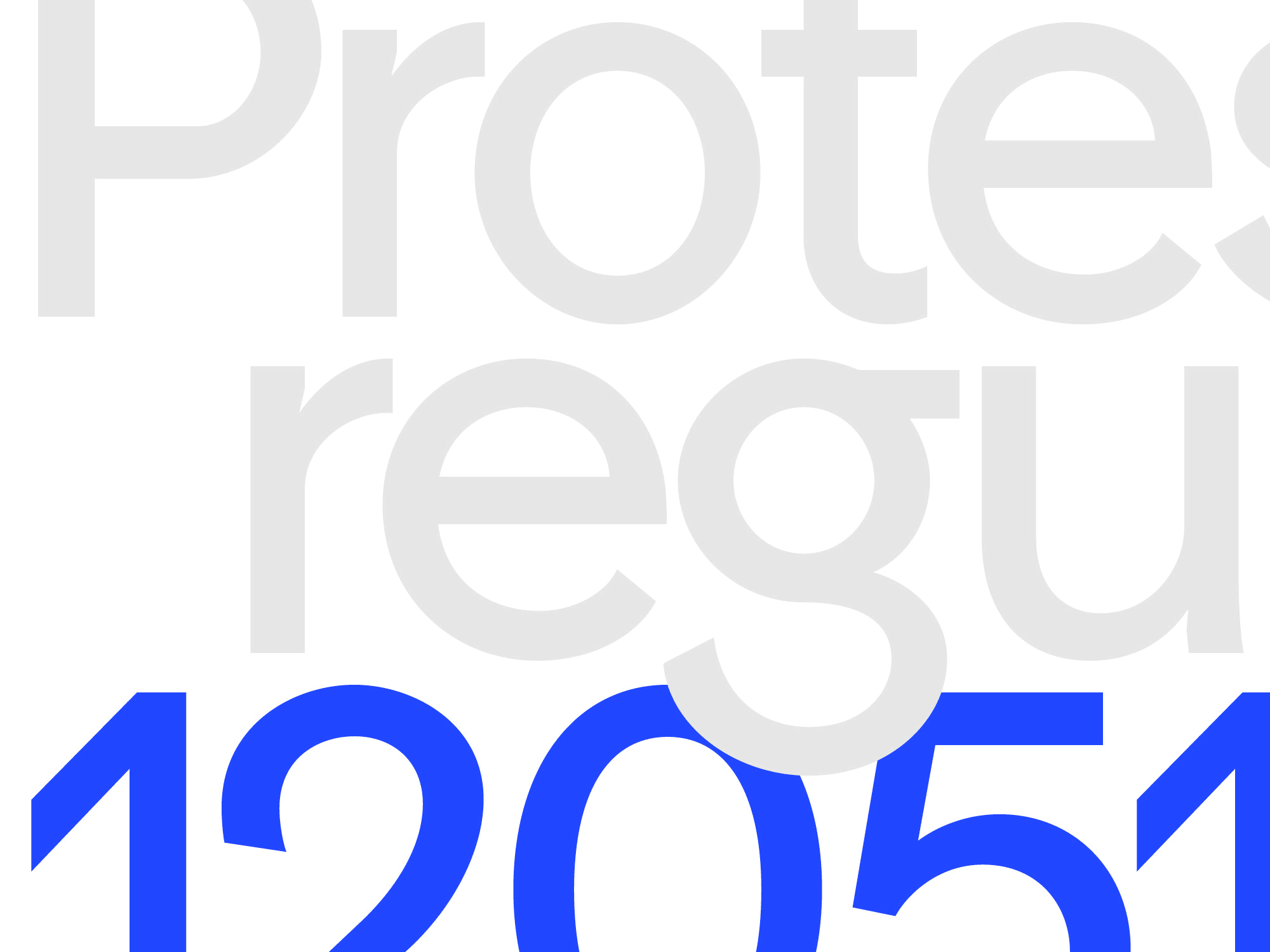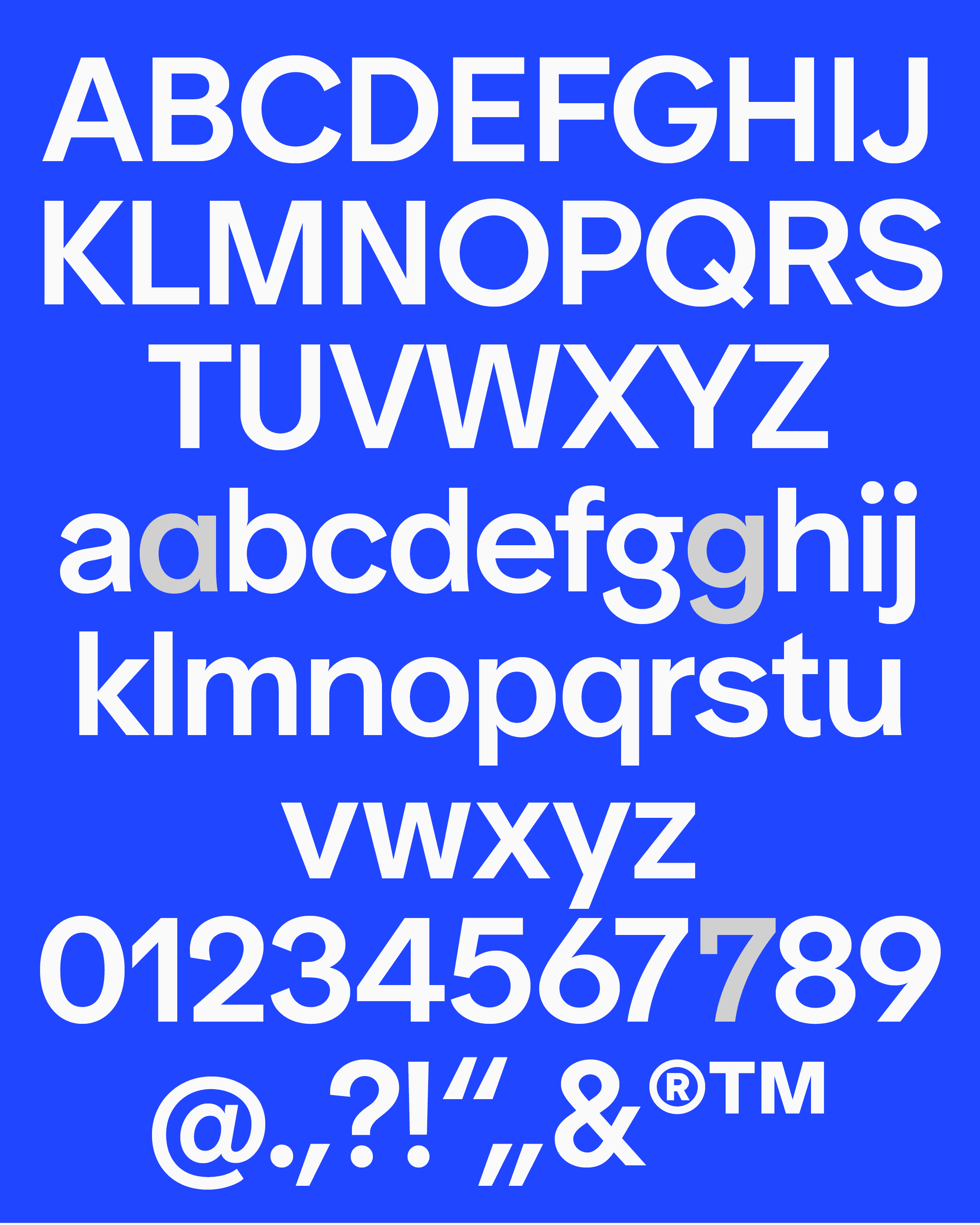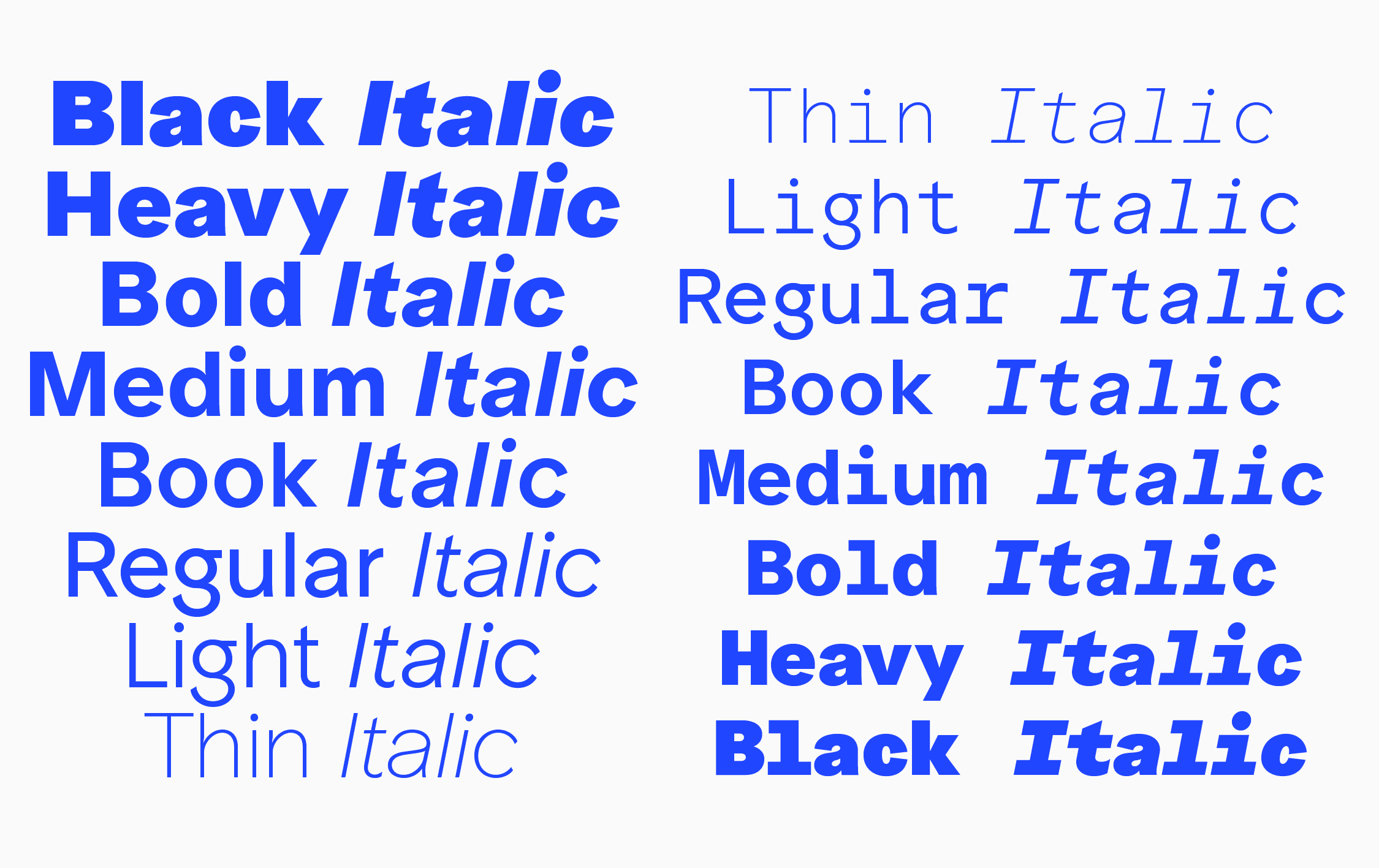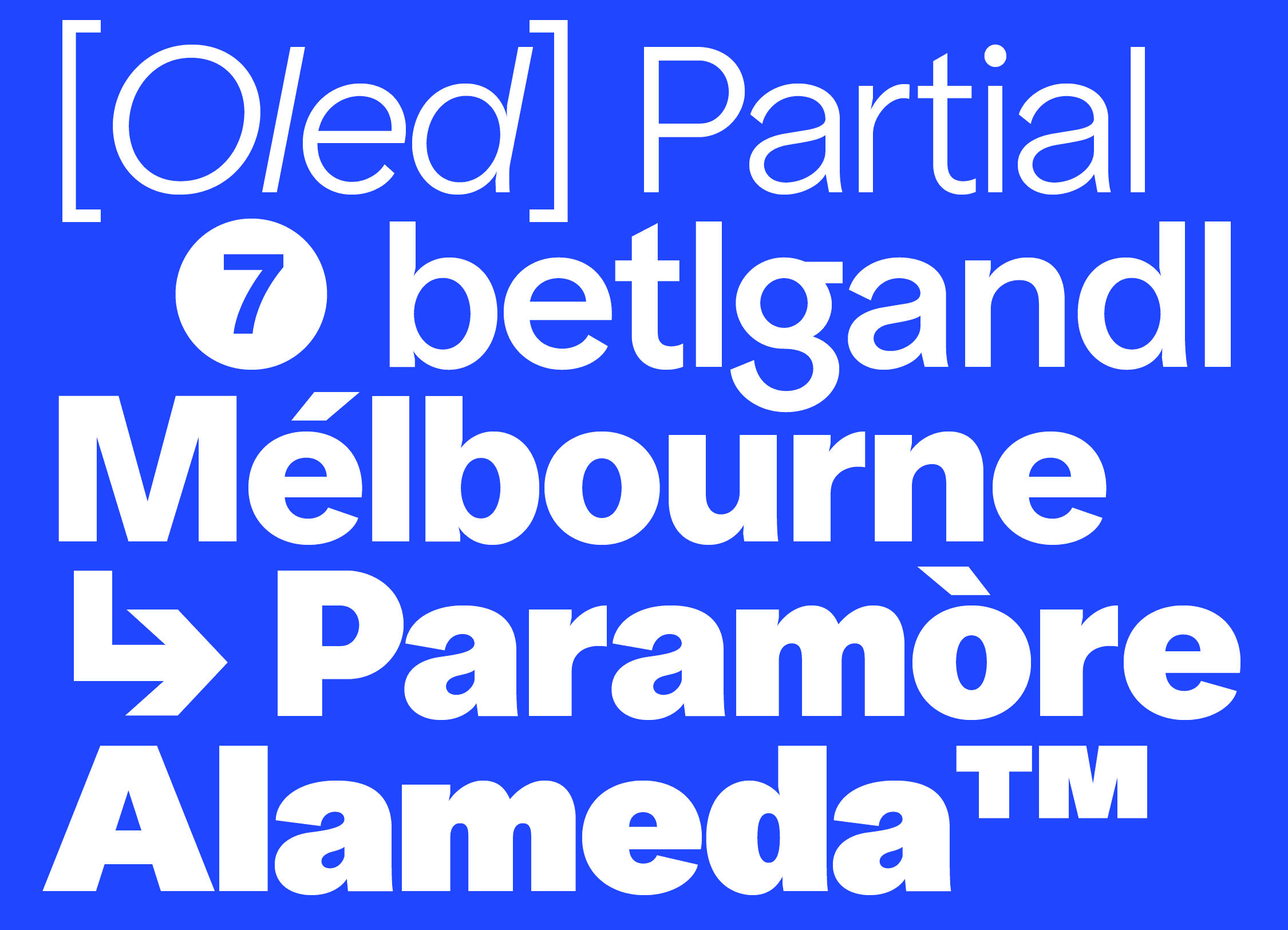
Protest Grotesk (Re)Released
Protest Grotesk is a geometric typeface with a humanist feel — balancing clean geometric forms with practical, balanced letterforms. Drawing from late 19th and early 20th century classics, it’s a fresh take on modernist typography that works equally well as a sharp headline face or a dependable text workhorse.
The typeface draws inspiration from geometric sans serifs such as Kabel and Futura, while also leaning on more humanist classics like Akzidenz Grotesk. The result is a contemporary take that feels just as at home in bold display use as it does in longer text settings.
Protest started as a geometric headline face for an architecture project, drawing heavily from Futura’s modernist purity and balanced forms. But when we began developing a running text version, we realized that strict geometry alone created problems. Geometric letterforms, while formally pure, were too restrictive to create the rhythm and flow that running text demands. We needed to move toward something more functional and human — pulling from Akzidenz-Grotesk’s direct, honest character, especially in the lowercase where legibility matters most.
The name isn’t literal. Protest references the original revolution of sans-serif typefaces — when stripping away ornament was genuinely radical. From today’s perspective, it’s hard to imagine that clean, sober letterforms with minimal expression were once considered offensive and unsavory. We wanted to capture that spirit of formal clarity without looking dated or precious.
The design process became a conversation between two worlds: Futura's confident geometry and Akzidenz's pragmatic warmth. We held onto what each does best — Futura's clean proportions and contemporary edge, Akzidenz's reliability and honesty — and built something that feels rooted in history without looking backward.
The result is genuinely versatile. It works equally well in headlines, body text, interfaces, and print. Sharp enough to command attention, and at the same time functional for body copy without being obtrusive.